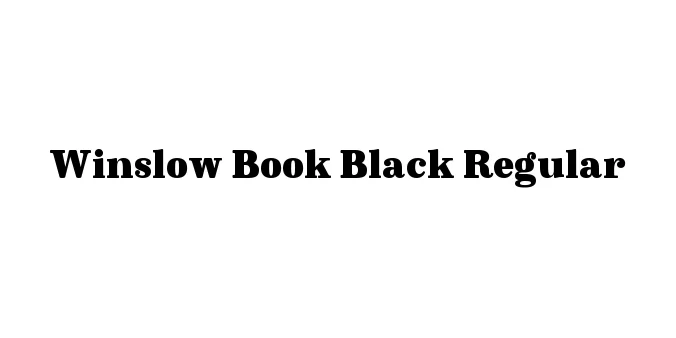
Winslow Book Black Regular
Designed by Kimmy Kirkwood
Winslow Book Black Regular is a sophisticated serif typeface designed by Kimmy Kirkwood of Kimmy Design. As a part of the larger Winslow superfamily, this specific weight is tailored for high-impact editorial work, offering a robust and authoritative presence while maintaining the delicate nuances of classic serif letterforms. Its design features high contrast between thick and thin strokes, making it an ideal choice for display purposes where elegance and readability must coexist.
The Winslow Book series was developed to bridge the gap between traditional book typography and modern display aesthetics. With its sharp serifs and carefully balanced proportions, the Black Regular weight provides a dense, luxurious texture to the page. It is widely recognized for its versatility in luxury branding, high-fashion magazines, and formal invitation designs, standing as a testament to contemporary serif craftsmanship.
Winslow Book Black Regular Best Uses
Perfect for magazine headlines and book titles requiring a strong, authoritative presence.
Ideal for high-end fashion logos and premium corporate identity projects.
Works exceptionally well for striking hero sections and sophisticated website headers.
Excellent for high-quality posters, wedding invitations, and luxury brochures.